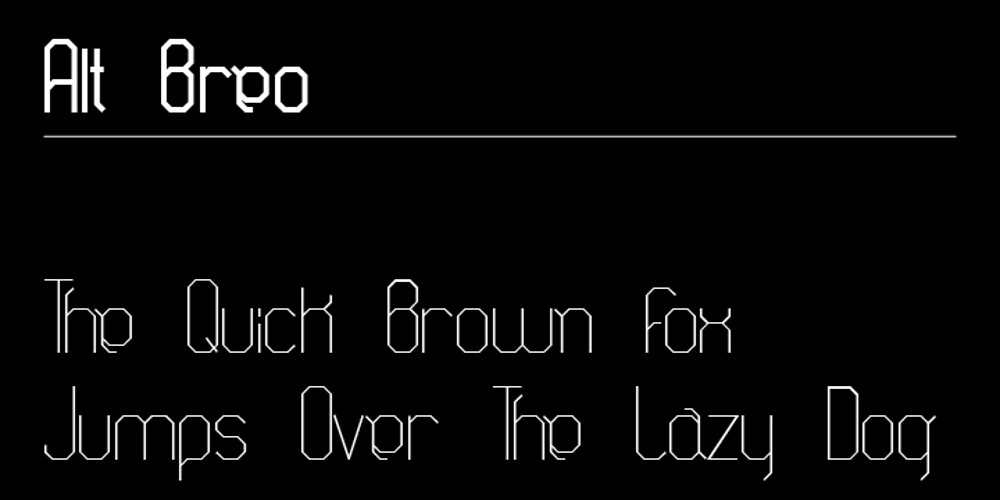
ALT Breo Font Family was designed by Andreas Leonidou and published by ALT. ALT Breo contains 5 styles and family package options. Breo is yet another experimental display typeface for use on logos and titles and everywhere else you want 😀